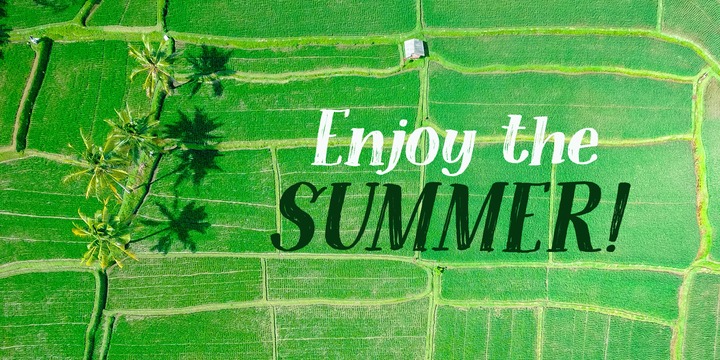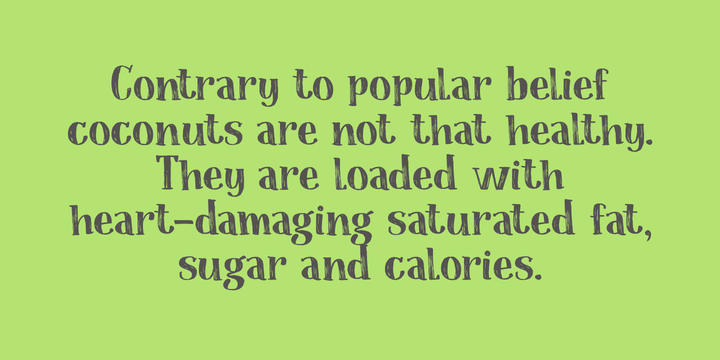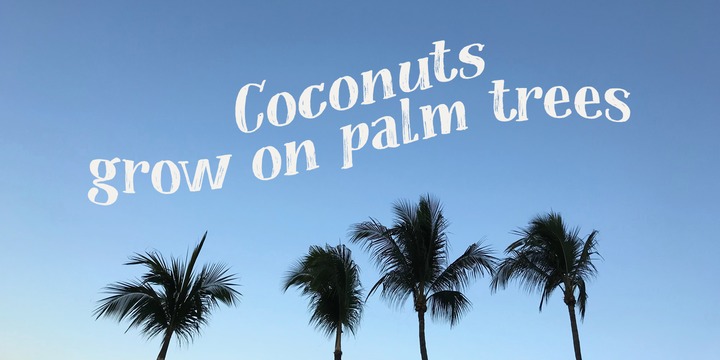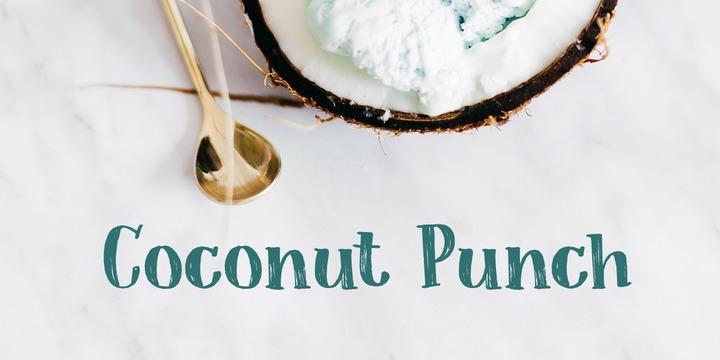
Health Warning! Coconuts are not that healthy!! I always thought that coconuts were the new quinoa, but apparently theyre not that good for you.
They are furry balls of saturated fat, sugar and calories, so dont go all out with your coconut eating habits! Of course, eating a bit of coconut now and then will not kill you, so enjoy! Coconut Punch is a handmade didone-ish font.
Nice and rounded and full of saturated brush strokes. Comes with all the diacritics you need too!